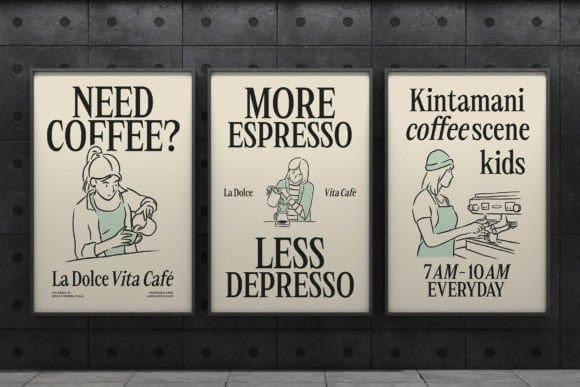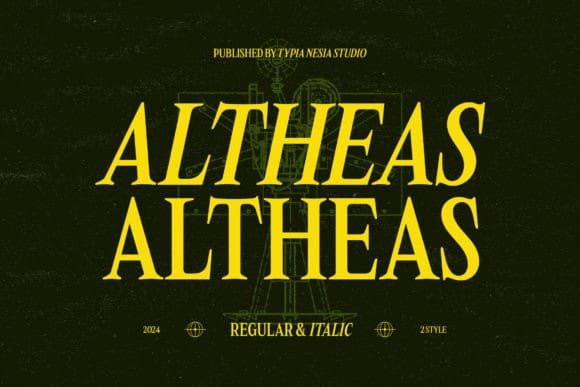
Altheas Font
Altheas Font is a Regular Italic Serif Font that blends classic elegance with a touch of modern flair. Its italicized and graceful serif characters bring sophistication and fluidity to any design, making it ideal for projects that require a classic and timeless aesthetic. Such as branding, editorial design, book covers, wedding invitations, quotes, elegant product packaging, magazine covers, and any project to require a modern touch, and elegant classic.